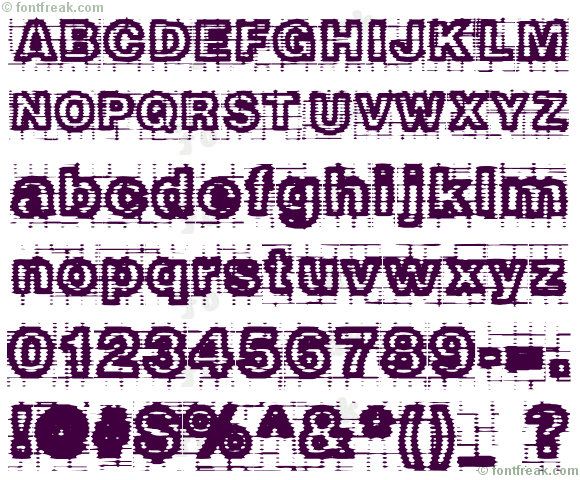
Rennacs
About Rennacs
Rennacs is a unique display font by FONTASTIC! that stands out with its playful and bold personality. Designed with a distinctive style, this font falls into the category of decorative typefaces, making it ideal for projects that require a touch of creativity and flair. The visual characteristics of Rennacs feature a strong stroke weight, giving it a robust appearance, while its playful spacing adds an element of fun. The font showcases a unique texture that combines geometric shapes and rounded edges, resulting in a modern yet whimsical feel.
This font is particularly suited for a variety of creative applications. For instance, it can be effectively used in eye-catching movie posters where a dynamic visual impact is essential. Additionally, Rennacs shines in the design of restaurant menus, inviting diners to experience a lively atmosphere. It is also a great choice for crafting vibrant event flyers, particularly for children's parties or community events, where its playful nature can draw attention. Graphic designers and content creators will find it an excellent tool for enhancing branding materials or social media graphics, as its distinct style can help convey a brand's personality in a memorable way.